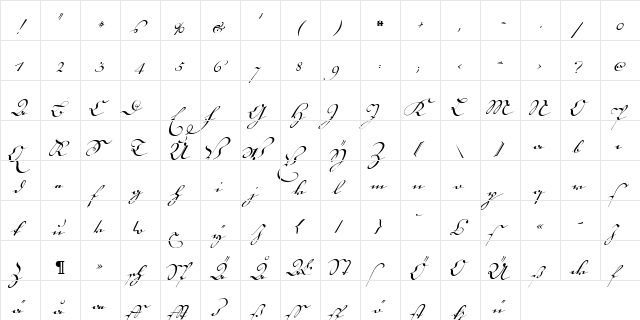
18th Century Kurrent Start Regular
Design Context for 18th Century Kurrent Start Typeface
18th Century Kurrent Start is a composed and adaptable typeface that performs quietly and consistently across a wide range of design contexts.